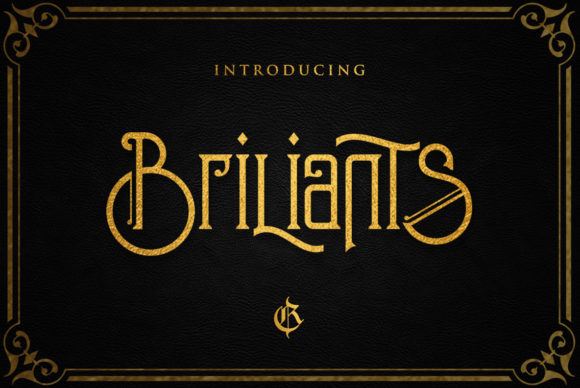
Welcome to the world of Briliants Font, a display font family that will ignite your imagination and captivate your audience. Designed by the renowned Rvq Type Foundry, Briliants is not just a font; it's an art form, a symphony of curves and strokes that dance across your screen, leaving a trail of elegance and grace.
Adorned with smooth curves and delicate lines, Briliants is the epitome of sophistication, perfect for fashion branding, editorial designs, and any project that demands a touch of beauty and refinement. Its thin and delicate structure exudes an air of lightness and femininity, making it ideal for creating designs that whisper rather than shout.
Briliants is more than just a collection of letters; it's a gateway to a world of creativity, where words transform into visual masterpieces. Its elegant strokes will elevate your designs to new heights, turning ordinary text into captivating works of art.
With Briliants, you'll discover a new level of expression, a font that allows your words to dance across the page, captivating readers with its grace and poise. Whether you're crafting a poetry book, a fashion magazine, or a simple social media post, Briliants will add a touch of magic, transforming your words into unforgettable experiences.
So, dive into the world of Briliants Font, and let your creativity soar. Experience the beauty of smooth curves and delicate lines, and elevate your designs to new heights. With Briliants, your words will shine brighter than ever before.